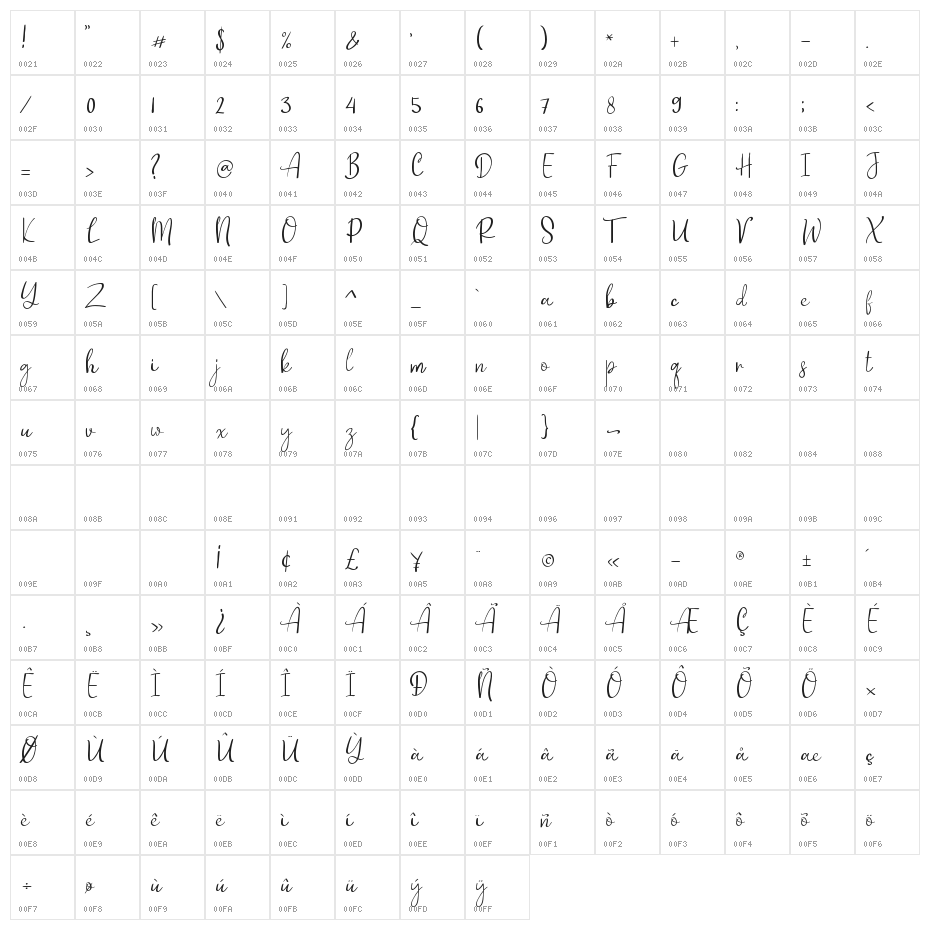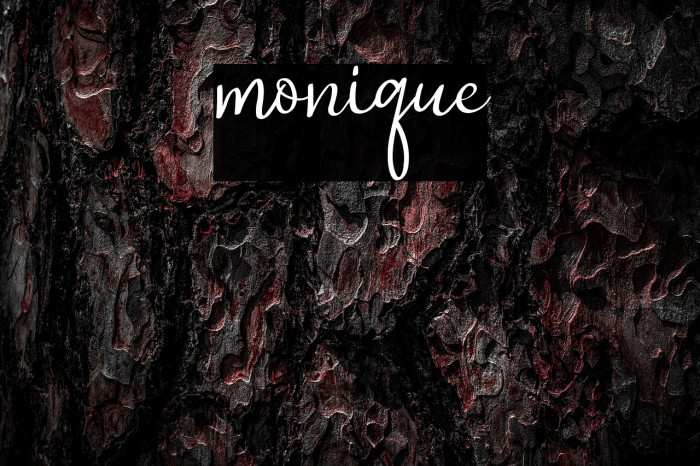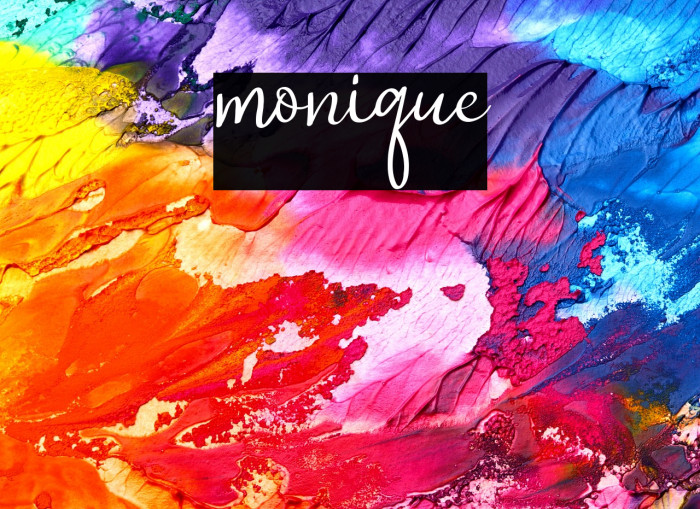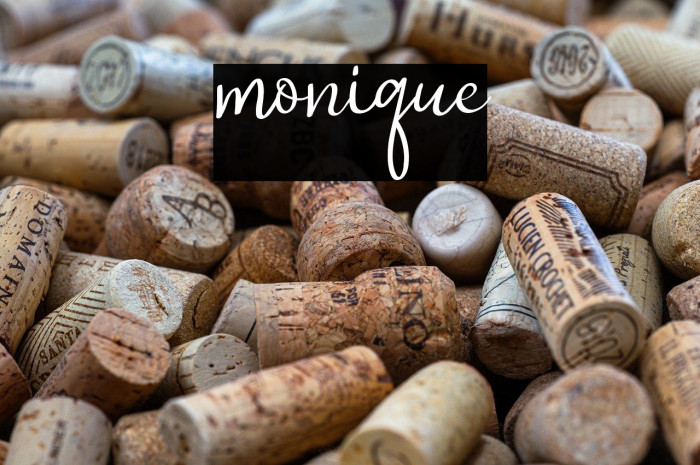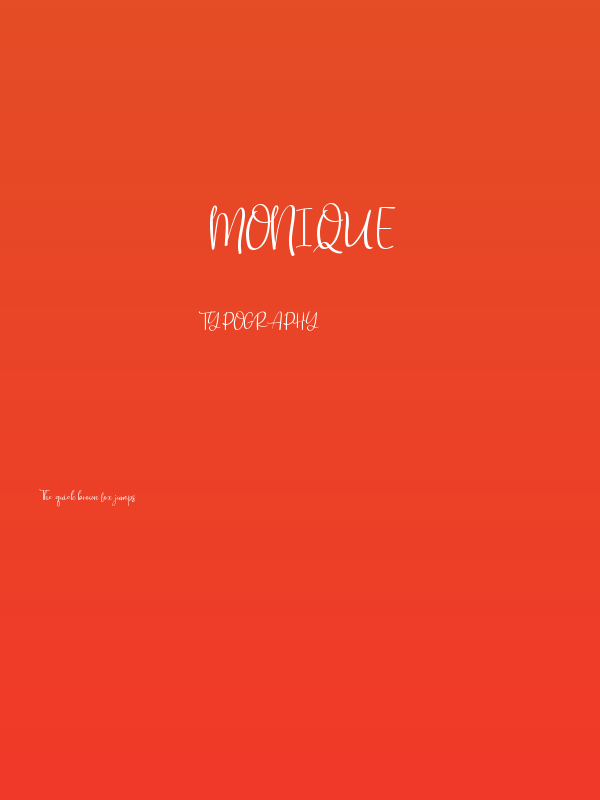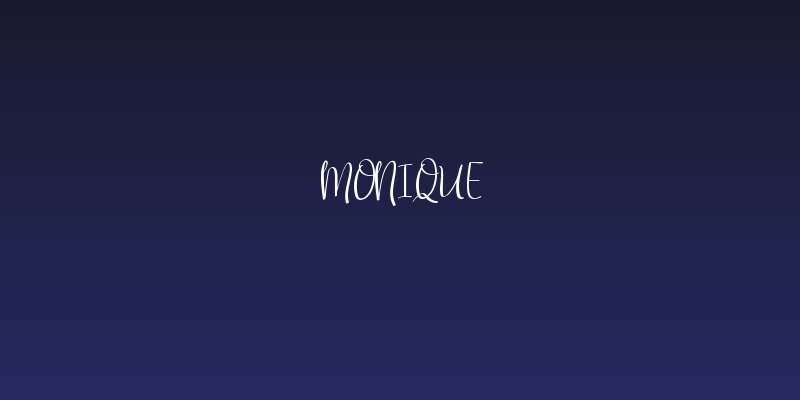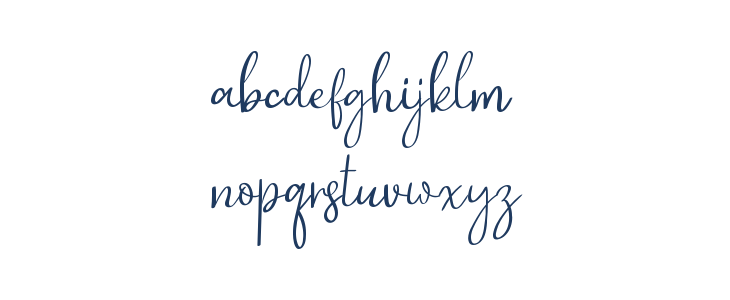
monique Font
monique Description
This font exudes a charming and elegant handwritten style, characterized by its fluid and graceful strokes. The uppercase letters are tall and slightly narrow, with a playful yet sophisticated flair. The lowercase letters maintain a consistent flow, enhancing the script-like appearance. Numbers and special characters are crafted with the same attention to detail, ensuring a cohesive look across all elements. The font's overall aesthetic is both modern and timeless, making it versatile for various design applications. Its unique style is perfect for adding a personal touch to any project.
| Use Case | Logos, Invitations, Social Media |
| Proposed Projects | Ideal for wedding invitations, greeting cards, branding, and social media graphics. |